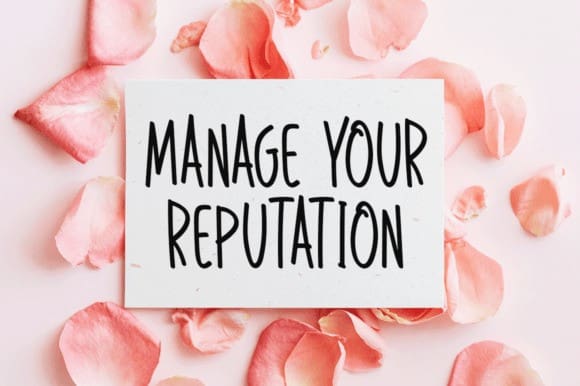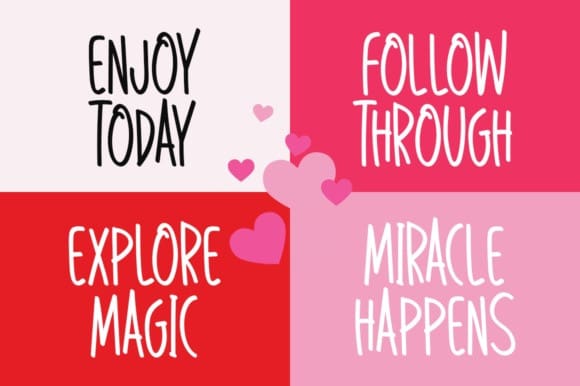
So Much Love Font
So Much Love Font is an incomparable handwritten font. It can easily be matched to an incredibly large set of projects, so add it to your creative ideas and notice how it makes them stand out!